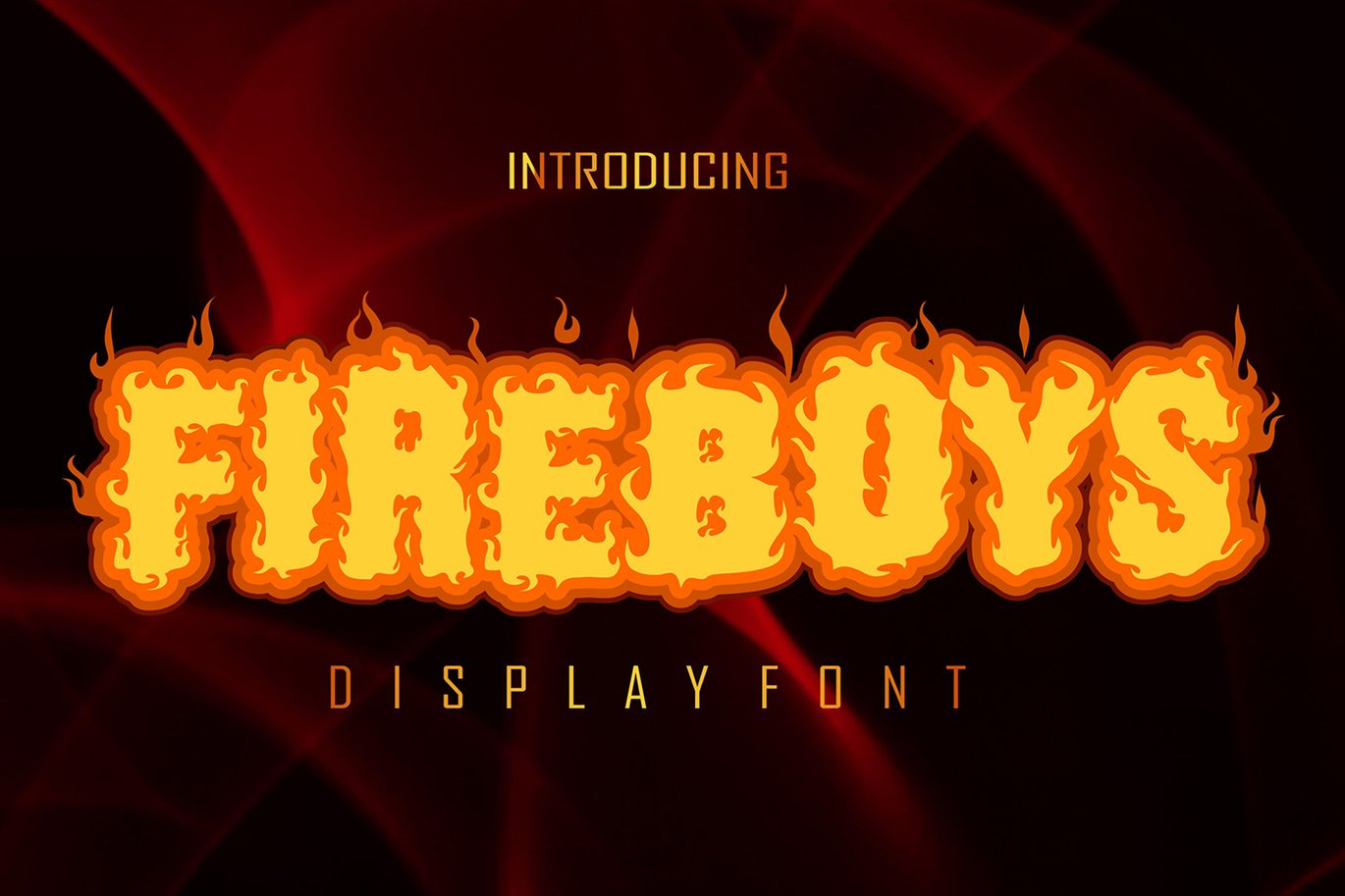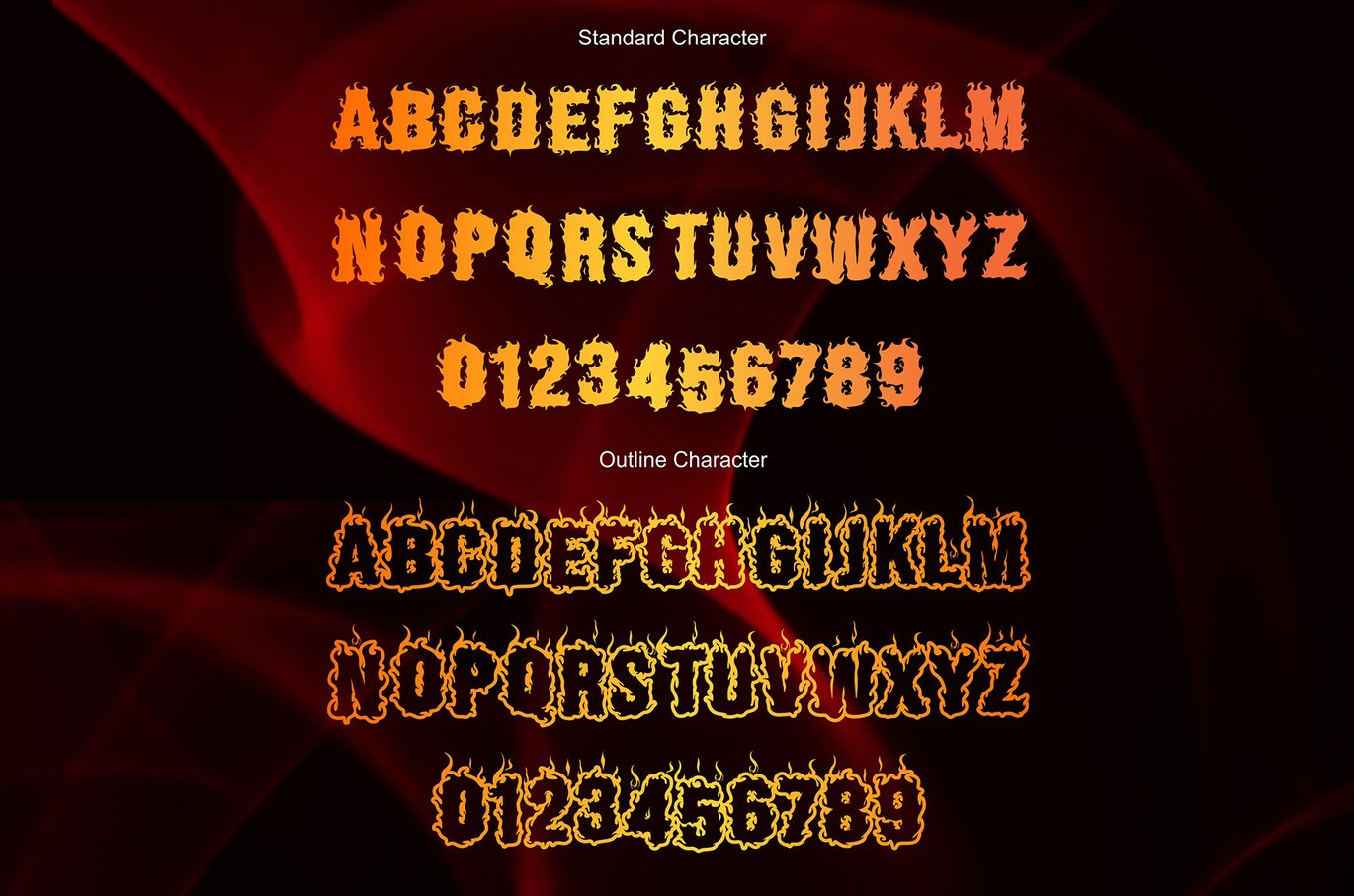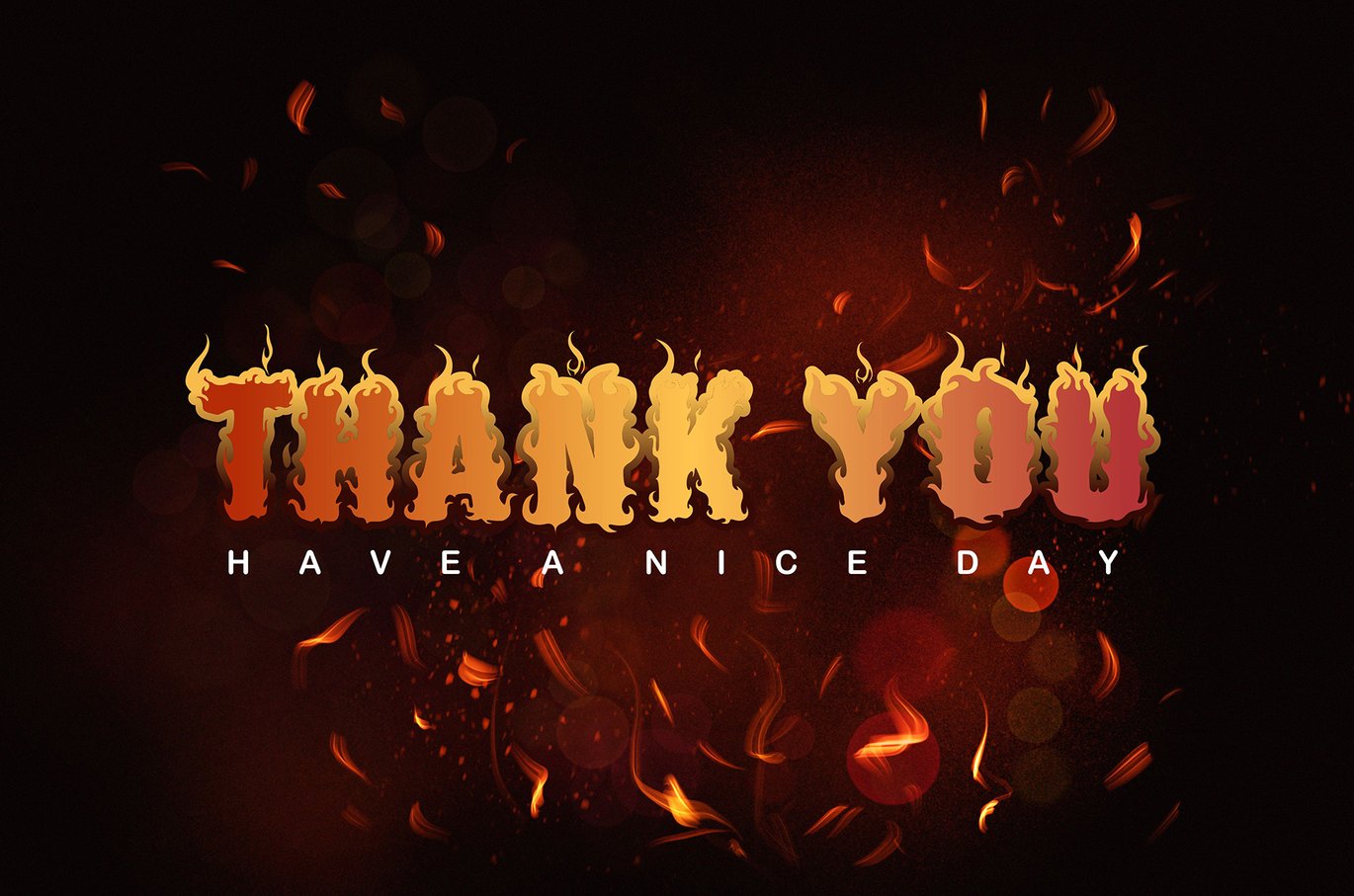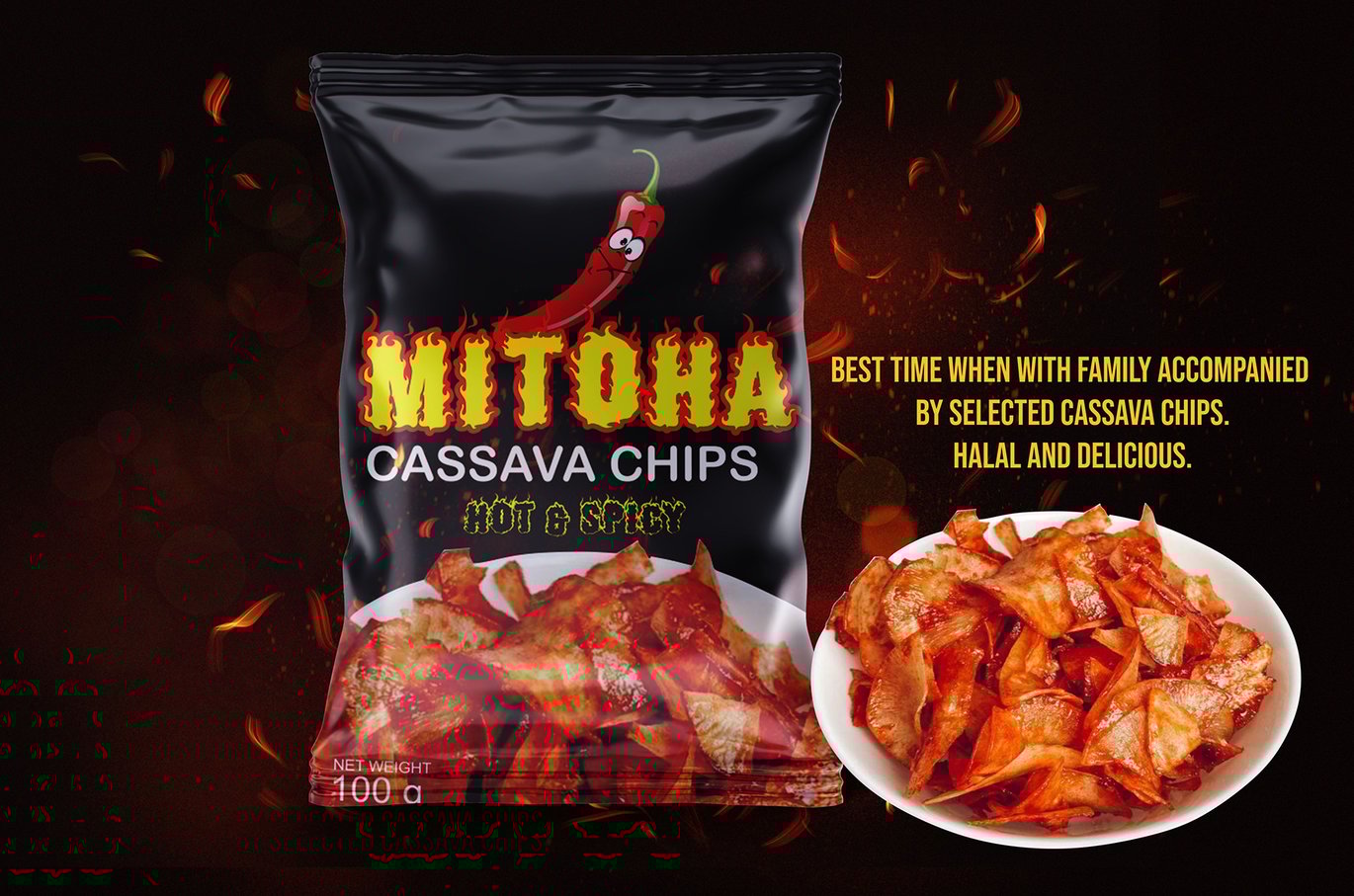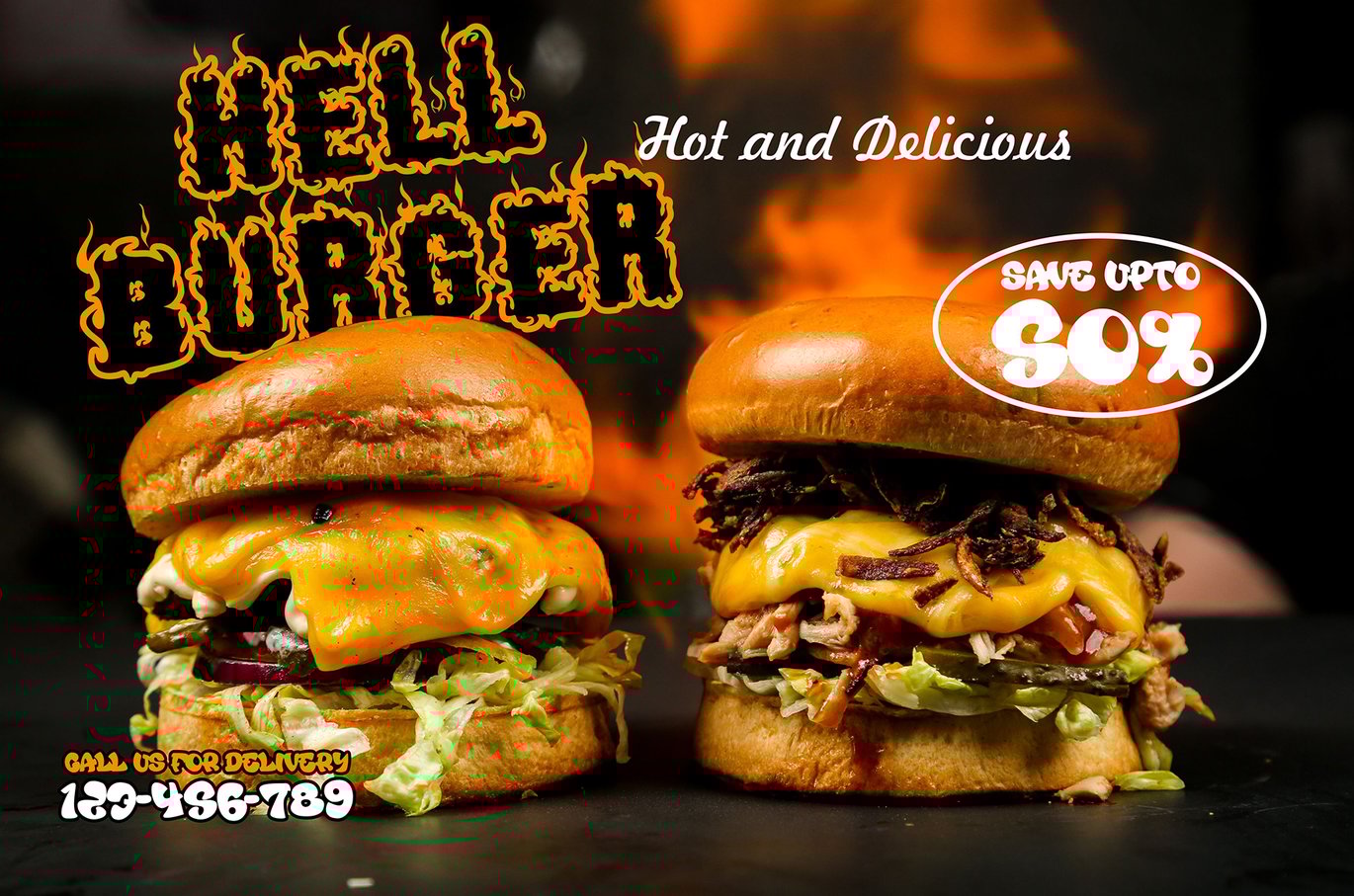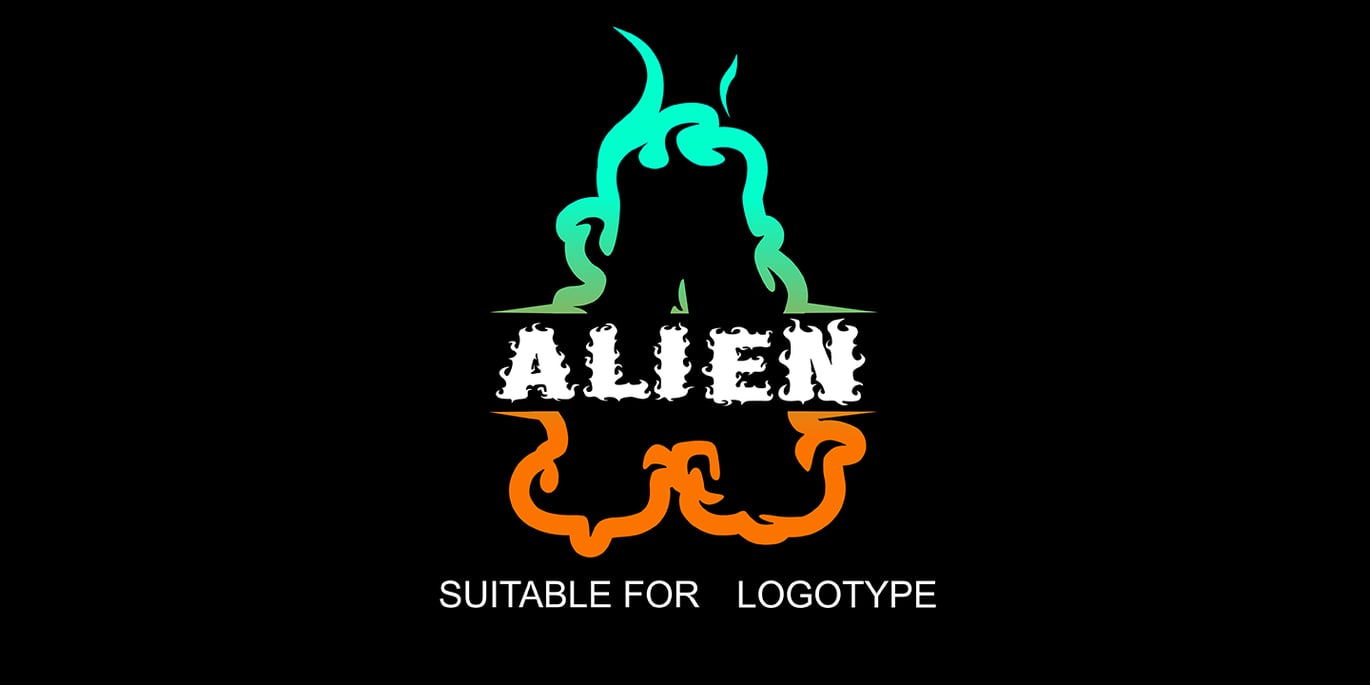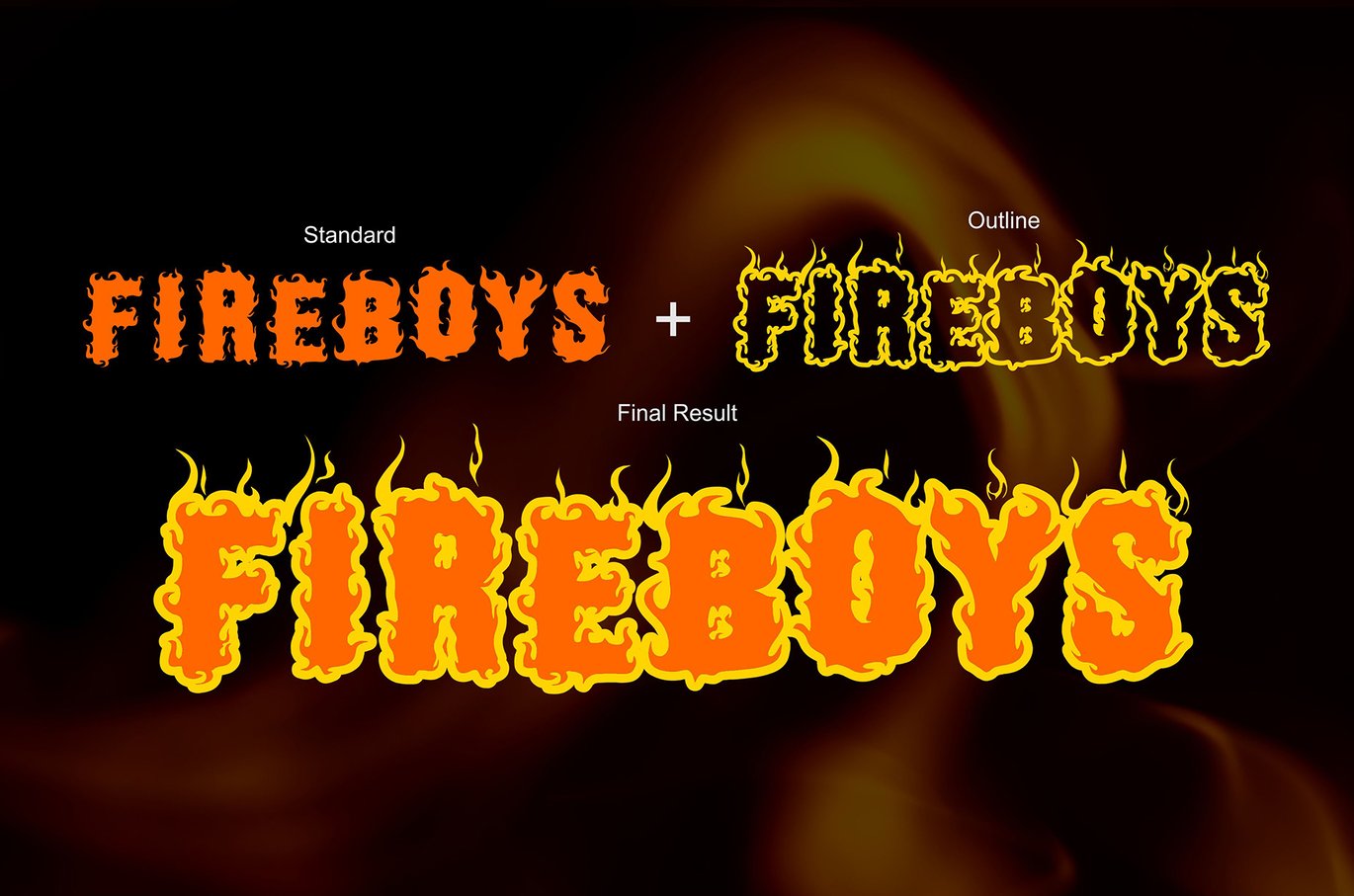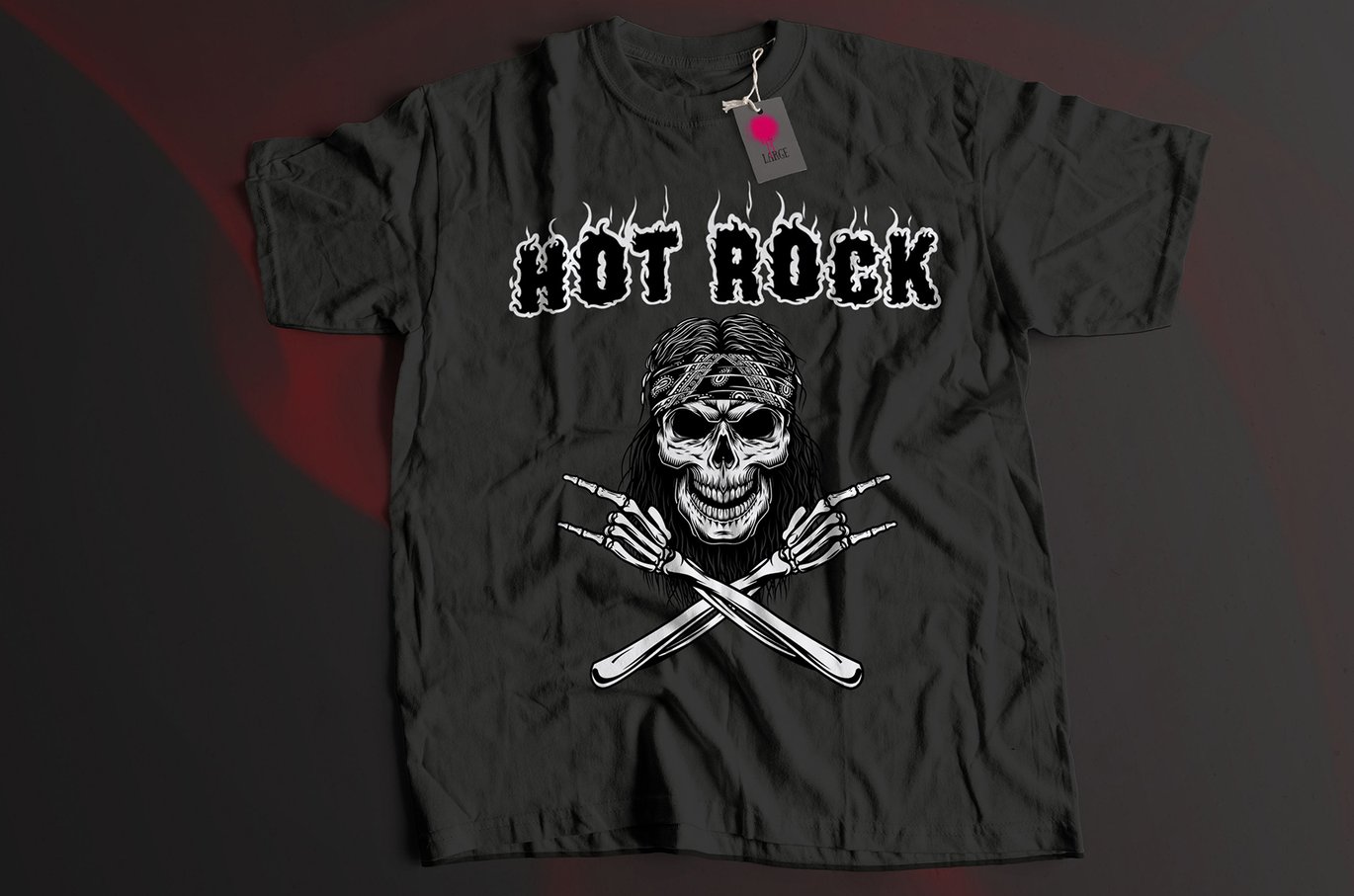
Fireboys – Hot and Fire Font
introducing, Fire Boys Font, this is a display and decorative with Burning fire looks!! very suitable for logos, clothing, branding, and others. very easy to use without the hassle of drawing, Get inspired by its unique feel, and turn to add a lovely charm to any crafts project just by purchasing this font you can immediately use it for all your needs.